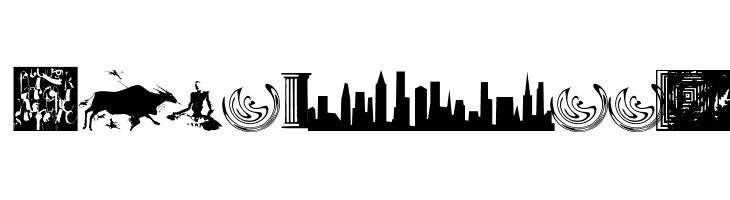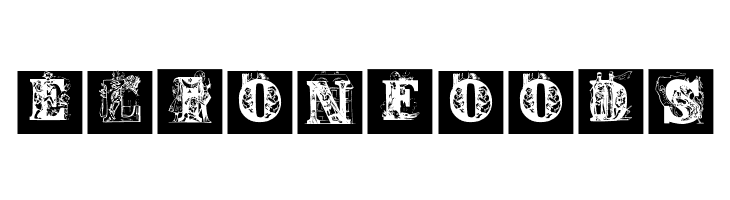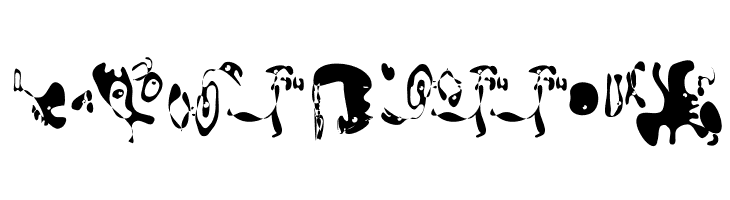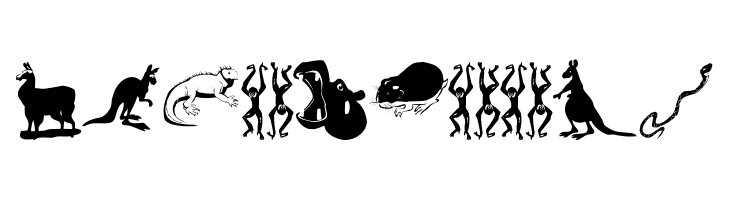
A diverse dingbat font with assorted graphic icons and illustrations.
An ornate, illustrative font with detailed scenes within each uppercase letter.
A decorative, 3D ribbon-like font with bold outlines and intricate details.
Abstract, surreal, and decorative font with organic, chaotic shapes.
Animal-themed decorative font with illustrated characters.